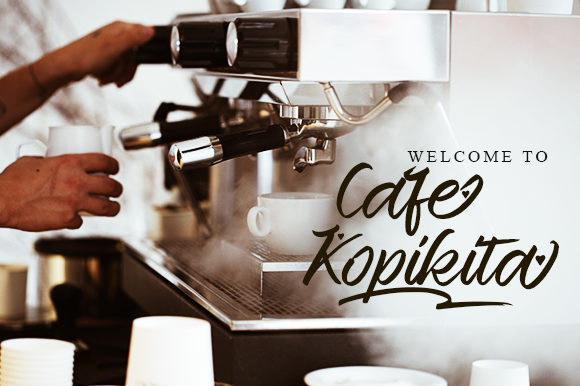
Reaktions Story Font
Reaktions Story is a strong lettered handwritten font. This font reads as bold, confident, and dynamic and can add tons of nostalgic character to your designs.